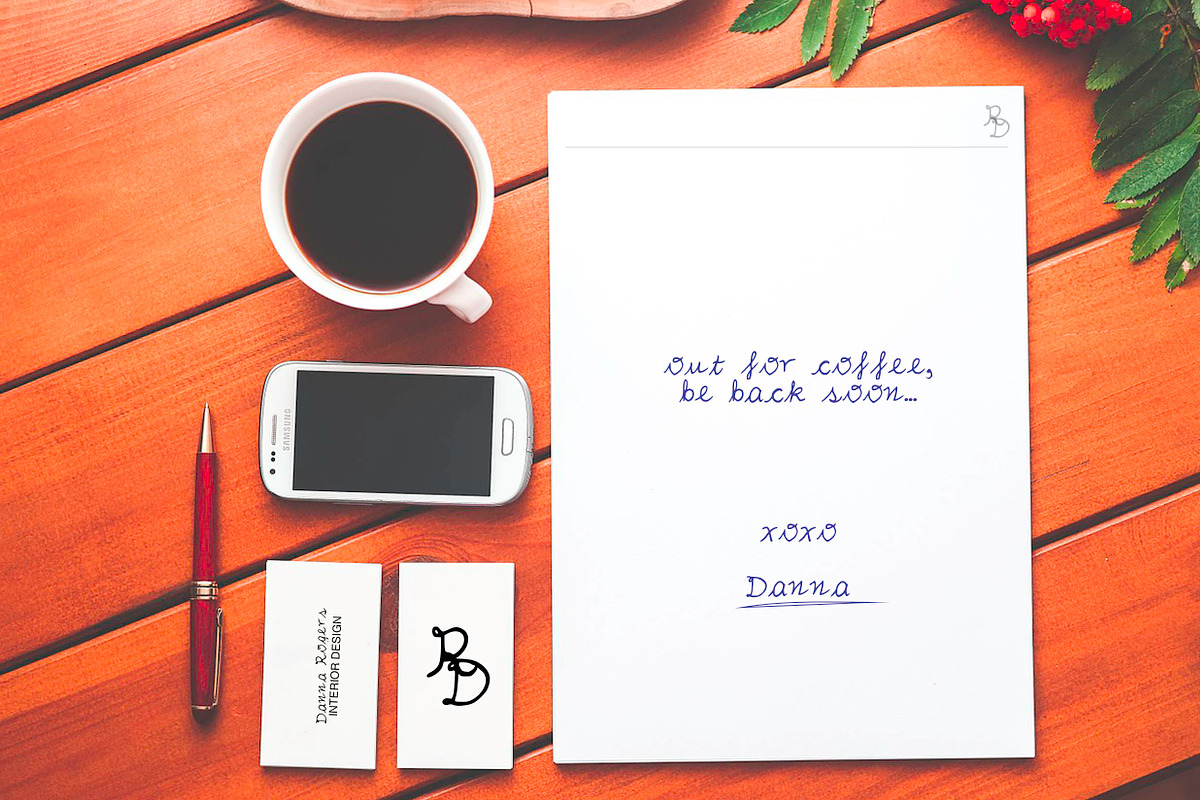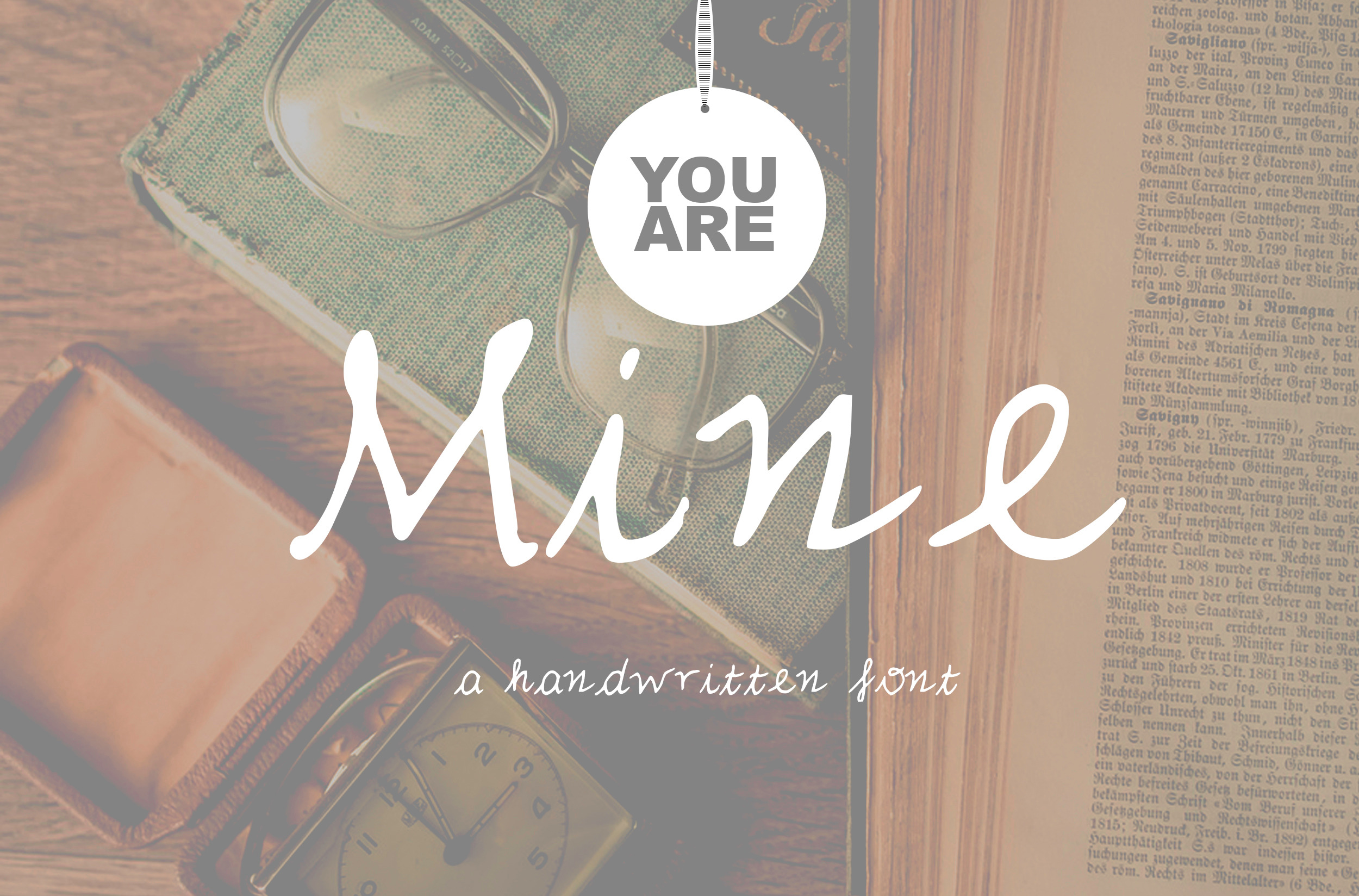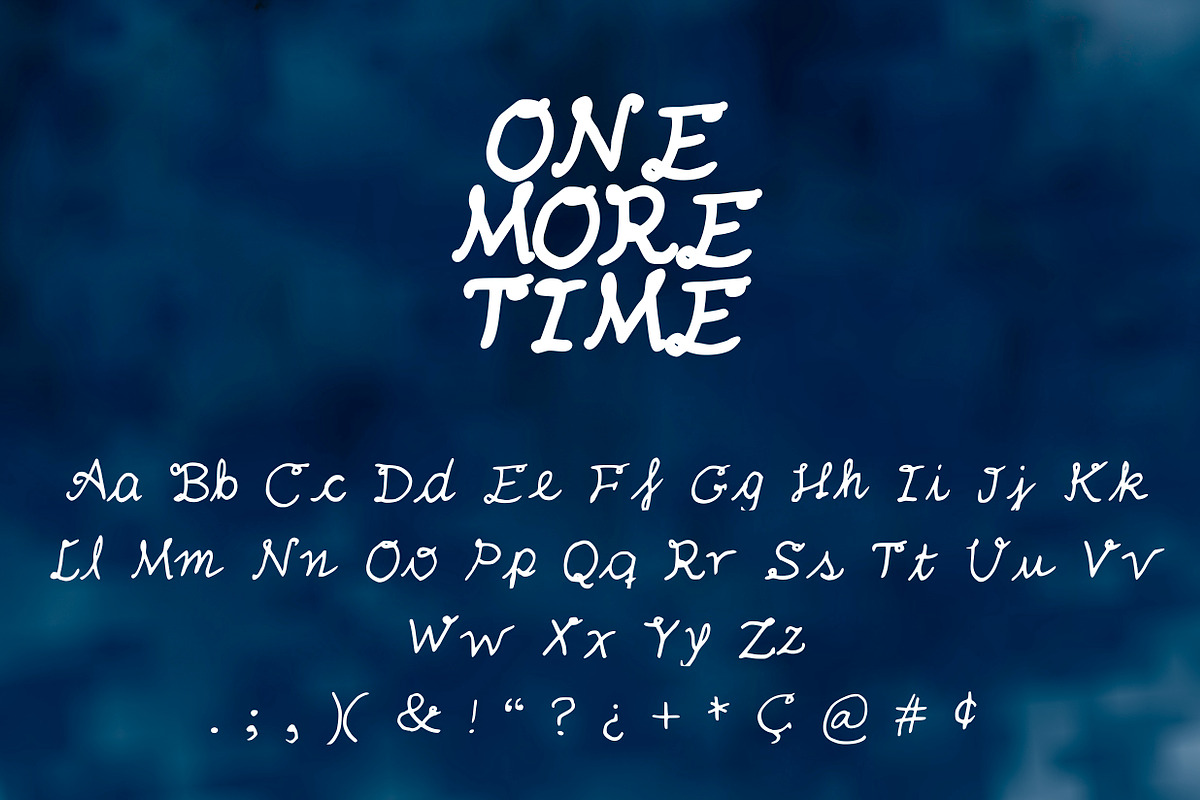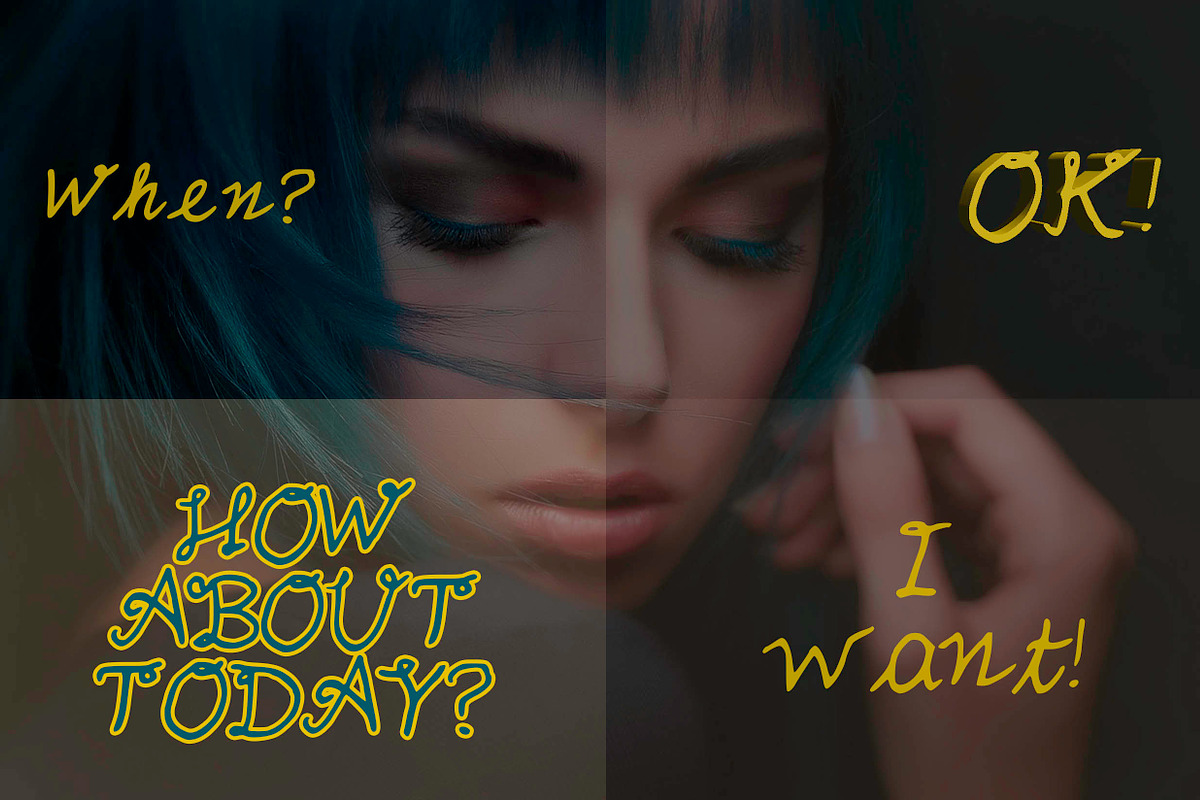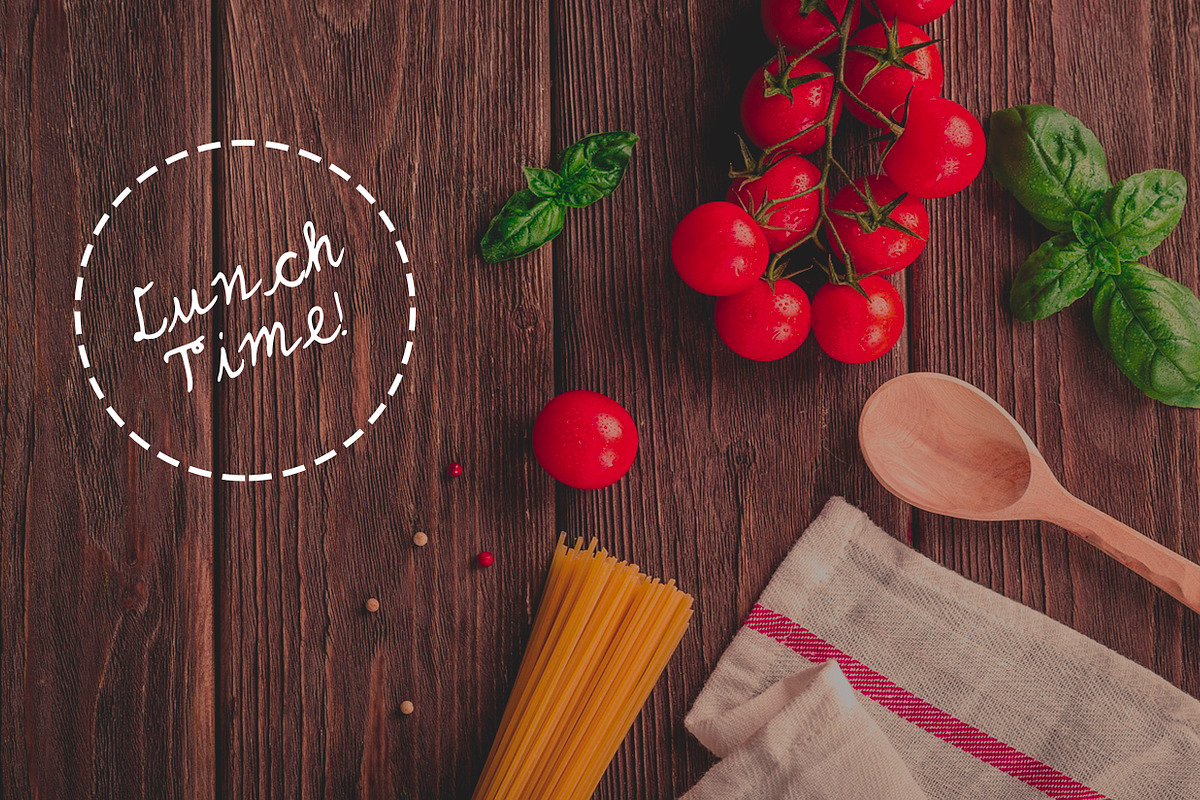
Mine Handwritten Font
A handwritten font made for you. As we used to write when we were "young" (my first one ever - so let´s be kind :-) 144 characters .ttf & otf - valid as web font.
Perfect for a natural fresh look, a bit old fashion still elegant and simple.
Great for handmade - relaxed goods.
Friendly for Social Networks and Product Branding.
Includes Special Characters